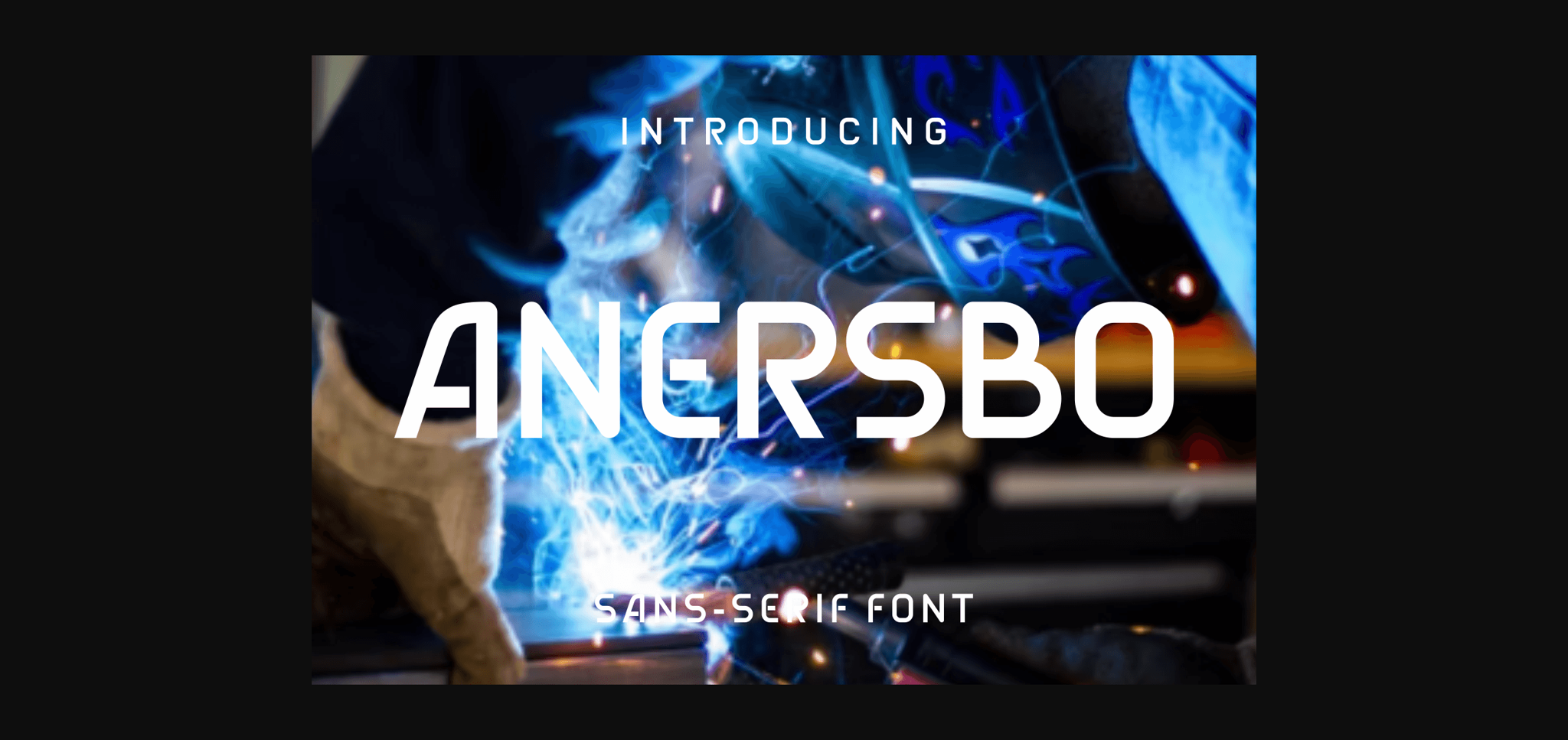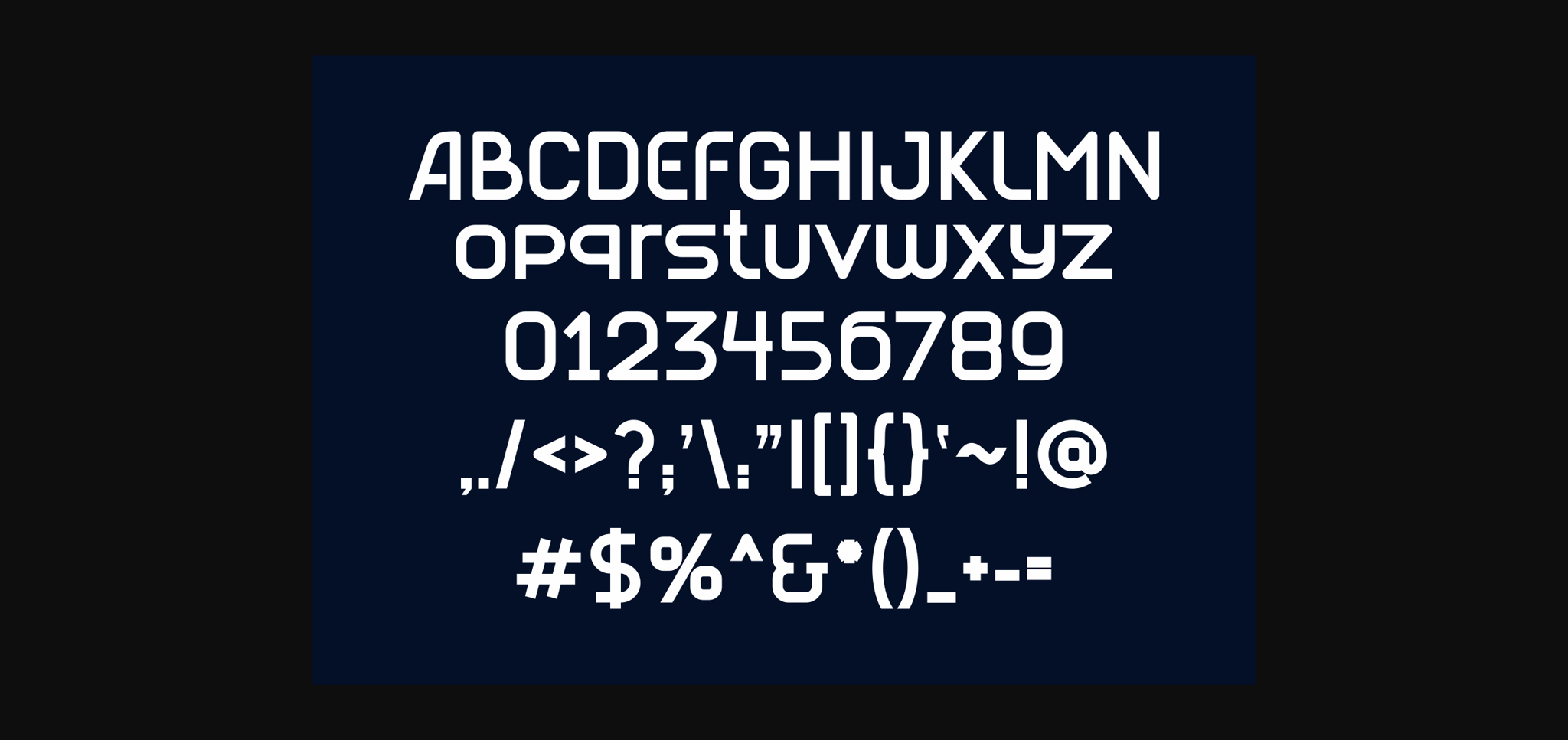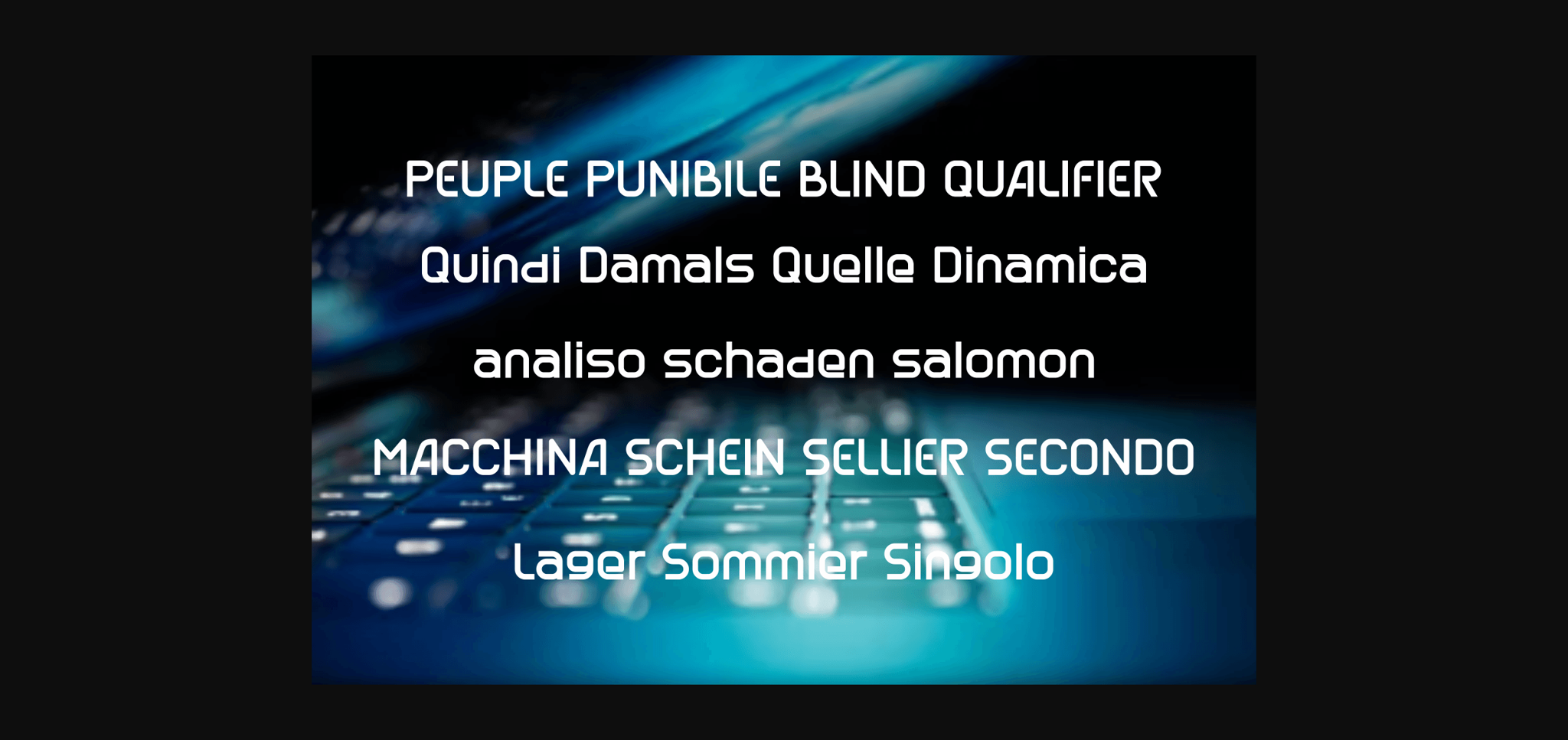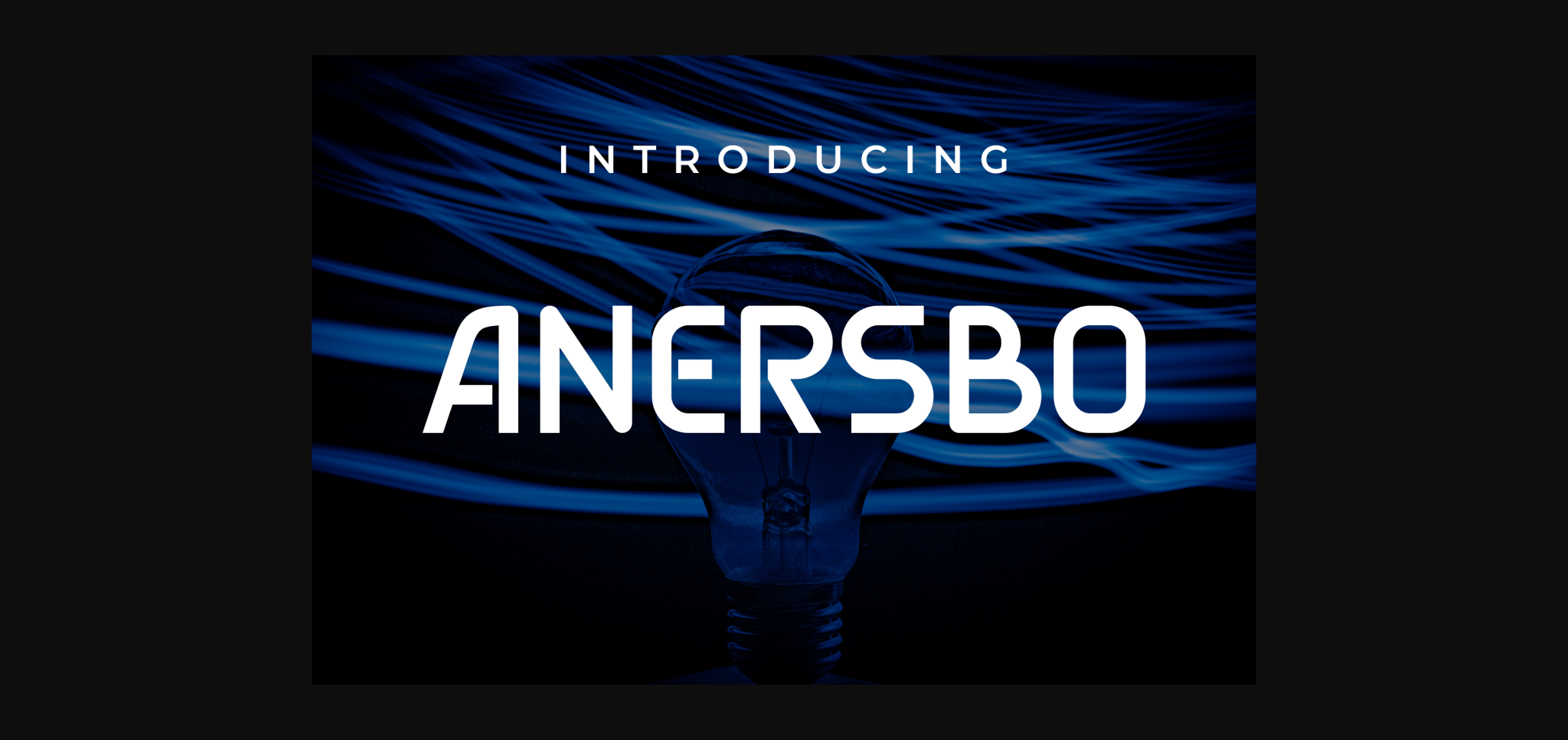
About Anersbo Font
Anersbo is a cool and futuristic sans serif font. This modern and bold vibe can easily apply to your favorite designs that require a sci-fi touch.